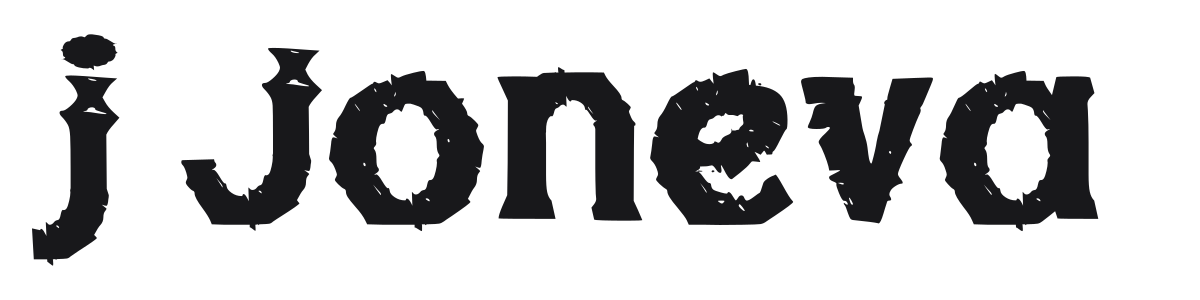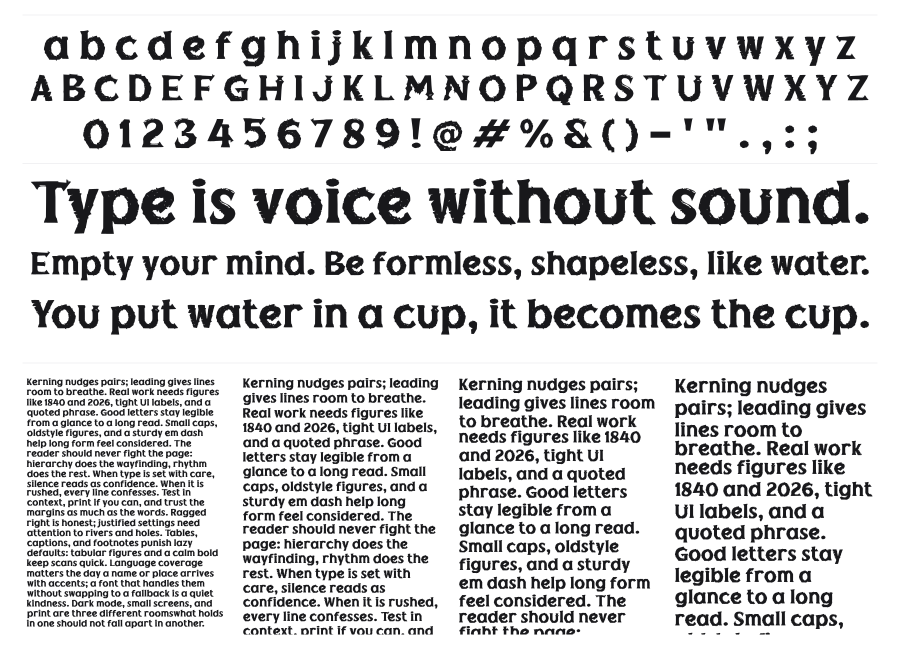
j Joneva
Joneva is a heavy distressed serif with a rough, stamped texture that gives it a gritty, underground character. Its bold wedge serifs and blackletter-influenced angularity lean dark without fully committing to gothic, making it versatile across horror, metal, and streetwear contexts. The worn edges keep it feeling hand-made rather than digital.